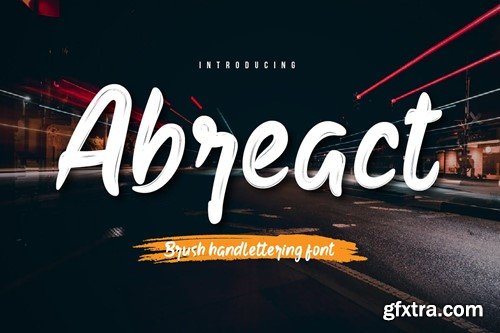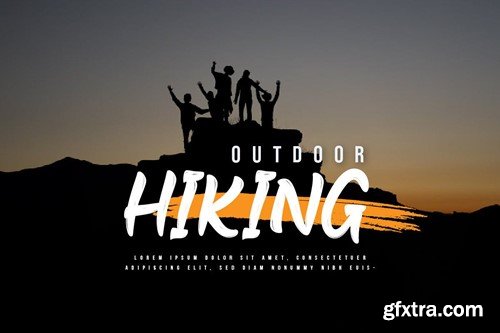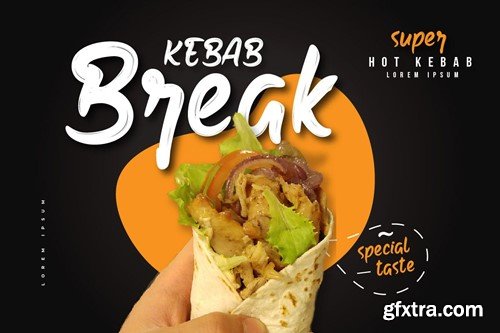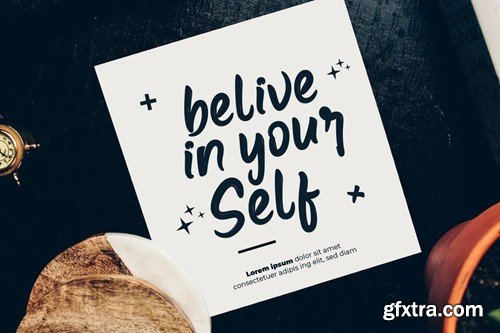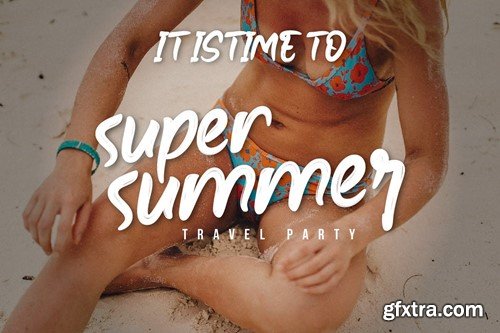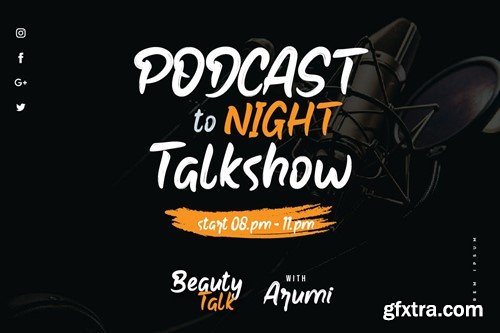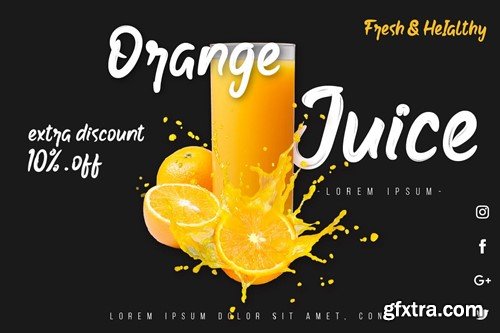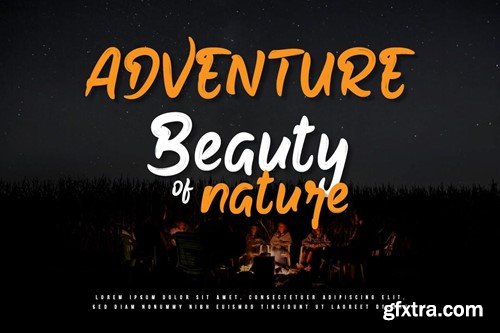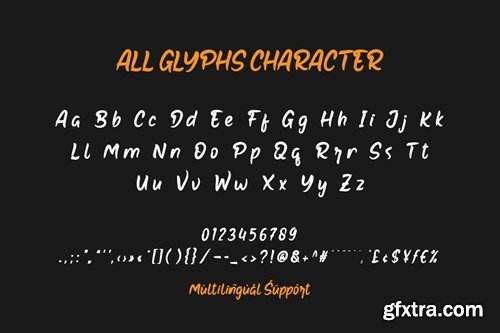
阿布 react - 刷写手写字体 5MAA6N2
Abreact - Brush Handwritten Font 5MAA6N2
Abreact - Brush Handwritten Font
Make a bold statement with Abreact - Brush Handwritten Font, the font that's as dramatic as it gets! With its strong strokes and intense design, Abreact demands attention and leaves a lasting impression. Whether you're designing powerful movie posters, crafting theatrical event invitations, or creating bold advertising campaigns, Abreact is your go-to font for making a statement. Get ready to captivate your audience and leave them speechless with Abreact - the font that's bold, dramatic, and unforgettable!